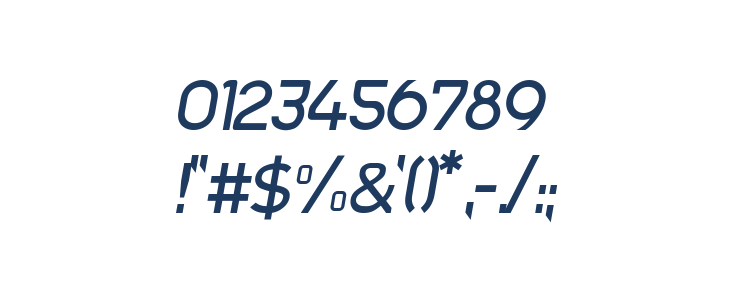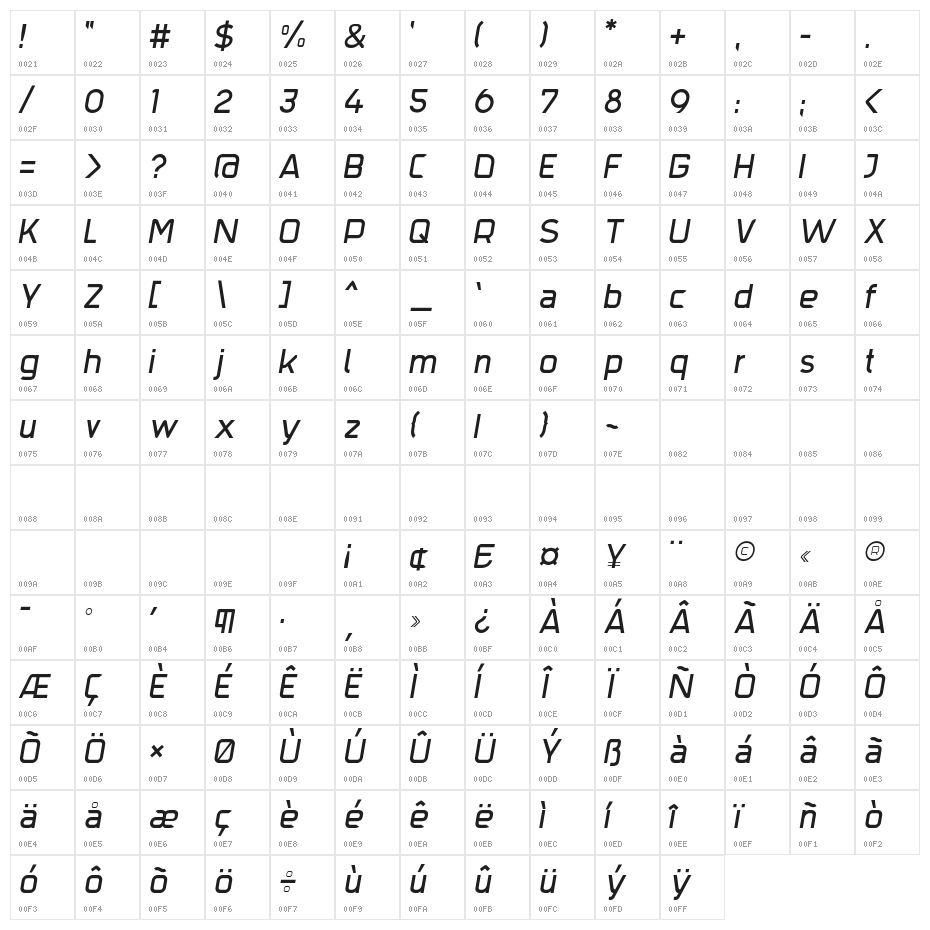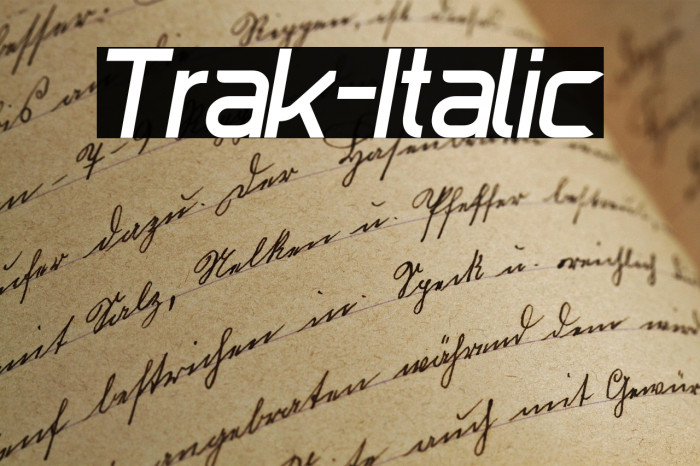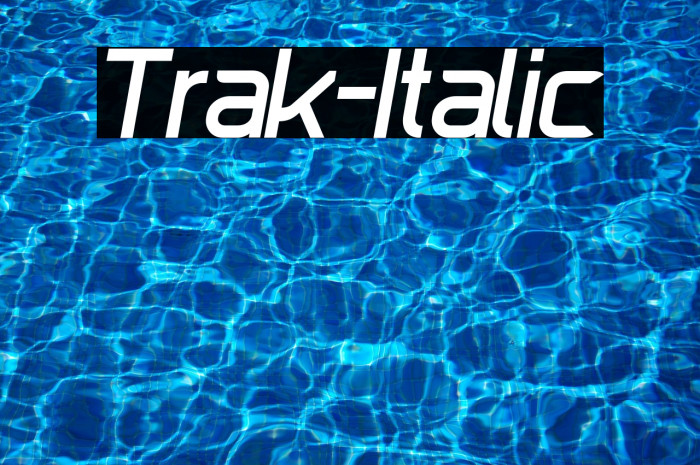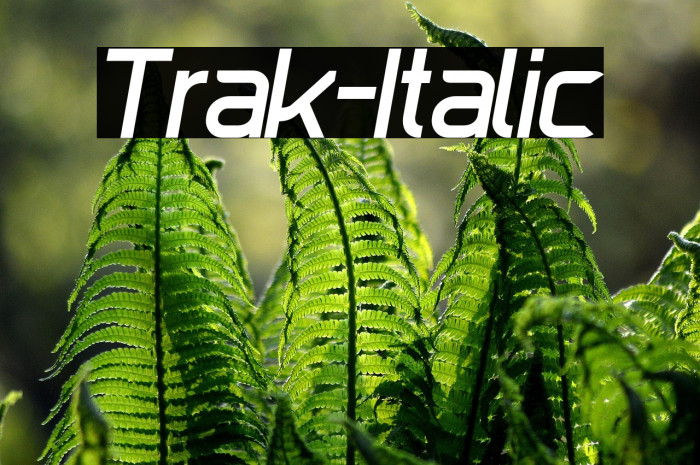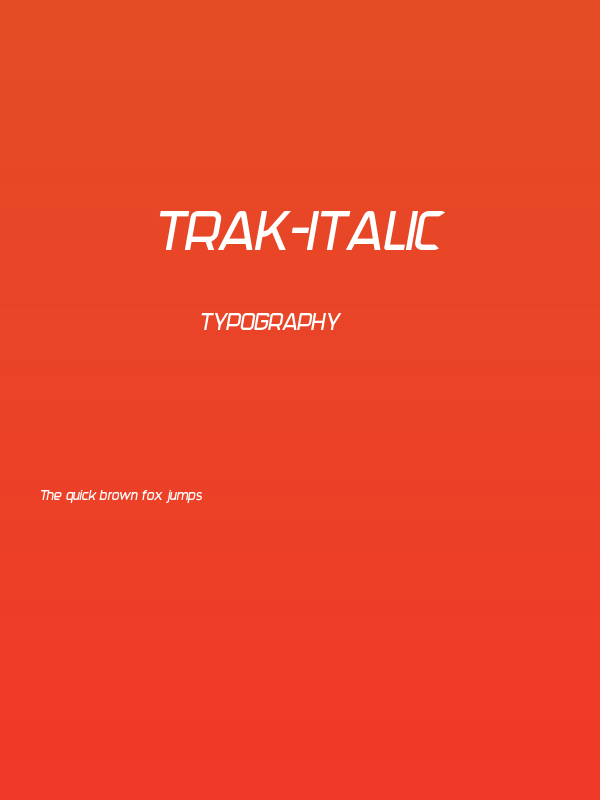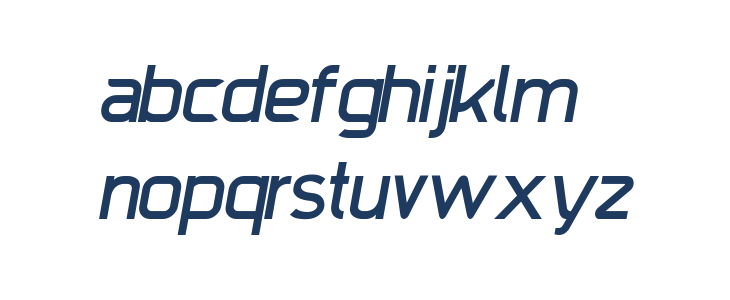
Trak-Italic Font
Trak-Italic Description
This font features a sleek, italicized style with a modern and dynamic appearance. The characters are slightly slanted, giving a sense of motion and fluidity. The strokes are consistent in width, providing a uniform look across all letters and numbers. The design is clean and minimalistic, making it suitable for contemporary applications. The uppercase and lowercase letters are well-proportioned, and the numerals are clear and easy to read. Special characters are included, maintaining the same stylistic approach, which enhances the font's versatility.
Use CaseHeadlines, Logos, Digital media
Proposed ProjectsIdeal for branding, advertising, and digital media projects that require a modern and dynamic touch.